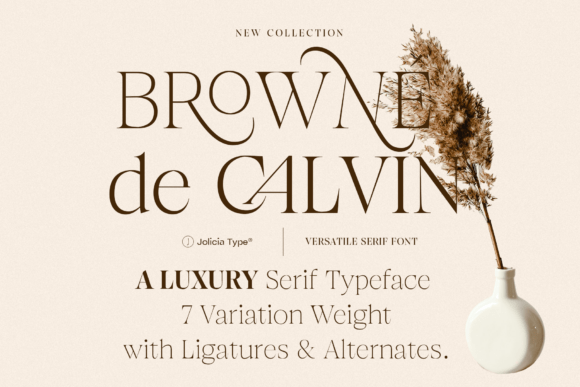
Timeless Elegance: Introducing the Browne de Calvin Font
Have you ever stumbled upon a beautifully crafted invitation that left you breathless? For me, it was a custom-designed wedding invitation that featured a stunning serif typeface – the moment I saw it, I knew I had to learn more about it. And that’s when I discovered the Browne de Calvin Font, a masterpiece of typography that embodies the essence of luxury and sophistication.
Designed to evoke the classic beauty of Roman serif tradition, the Browne de Calvin Font is a perfect blend of classic and contemporary styles. With its exquisite elegance and precision, it’s a valuable addition to any designer’s toolkit, ideal for high-end branding, editorial designs, invitations, and more. Whether you’re a seasoned designer or just starting out, the Browne de Calvin Font is sure to elevate your designs to the next level.
Browne De Calvin Font Key Features
- Font Family: Browne De Calvin Font is a serif font family designed by unknown, and it is not a well-known font family, although it has been used in some works of art.
- Unique Characteristics: The Browne De Calvin Font features a classic, elegant design with subtle flair and ornate details, making it suitable for formal and professional applications.
Browne De Calvin Font Review
Overall, I think the Browne De Calvin Font is a nice addition to any design project. ✨ Its elegant and refined look makes it perfect for high-end branding, luxury goods, and even some sophisticated digital projects.
- Highly legible at various font sizes
- Wide range of language support
- Available in multiple weights and styles
- Easy to pair with other fonts
However, there are some limitations to consider: ⚠️ It may not be the best choice for projects that require a more modern or edgy feel. Additionally, some users may find the font a bit too ornate or complex, which can be a challenge when it comes to readability on smaller screens.
Overall, I think the Browne De Calvin Font is a solid choice for designers who are looking for a high-end, sophisticated look. While it may not be the perfect fit for every project, it’s definitely worth considering when you need a font that exudes luxury and refinement.
Getting the Most Out of Browne De Calvin Font
To get the most out of the Browne De Calvin font, consider the following tips:
- Use it for titles and headings to add a touch of elegance.
- Pair it with a clean and modern font for body text.
The Browne De Calvin font is ideal for:
- Luxury brand logos and marketing materials.
- High-end event invitations and promotions.
Alternatives to Browne De Calvin Font
Bodoni Old Style
Bodoni Old Style is an elegant, classic serif font with a touch of modernity. It’s ideal for use in high-end fashion magazines, luxury brands, and any design project that requires sophistication and refinement.
Comparison to Browne De Calvin Font: While both fonts have a classic feel, Bodoni Old Style is more traditional and less ornate, making it a great choice for designs where simplicity and elegance are key.
Playfair Display is a luxurious, high-end serif font perfect for use in weddings, luxury events, and high-end branding. Its elegant and refined design makes it ideal for creating a sense of sophistication and glamour.
Comparison to Browne De Calvin Font: Playfair Display is more ornate and luxurious than Browne De Calvin Font, making it a great choice for designs that require a high level of luxury and sophistication.